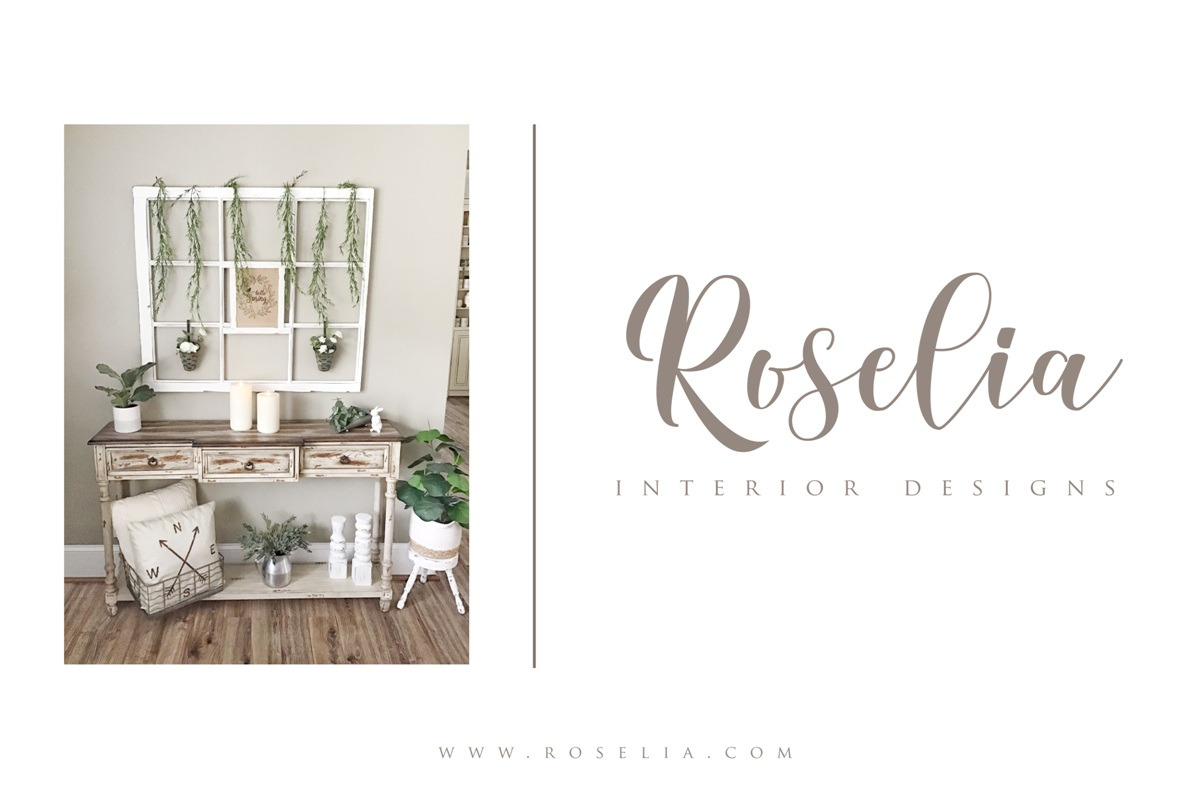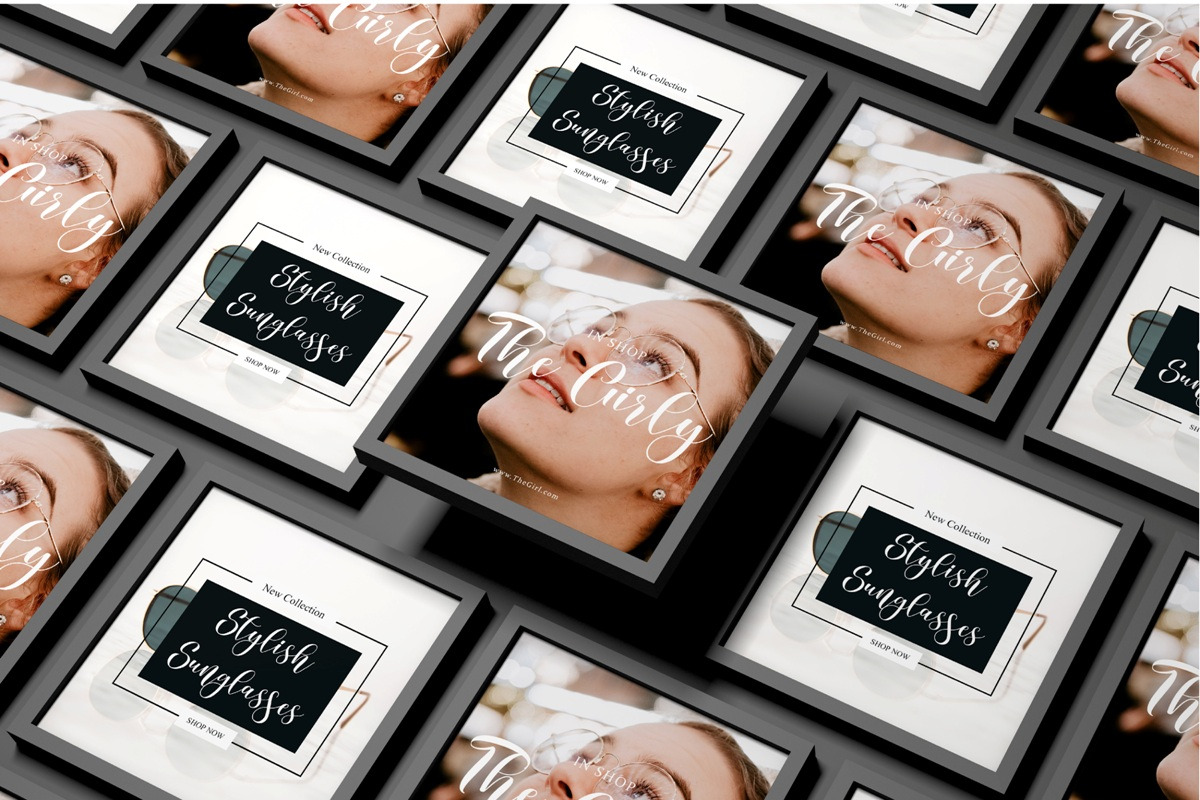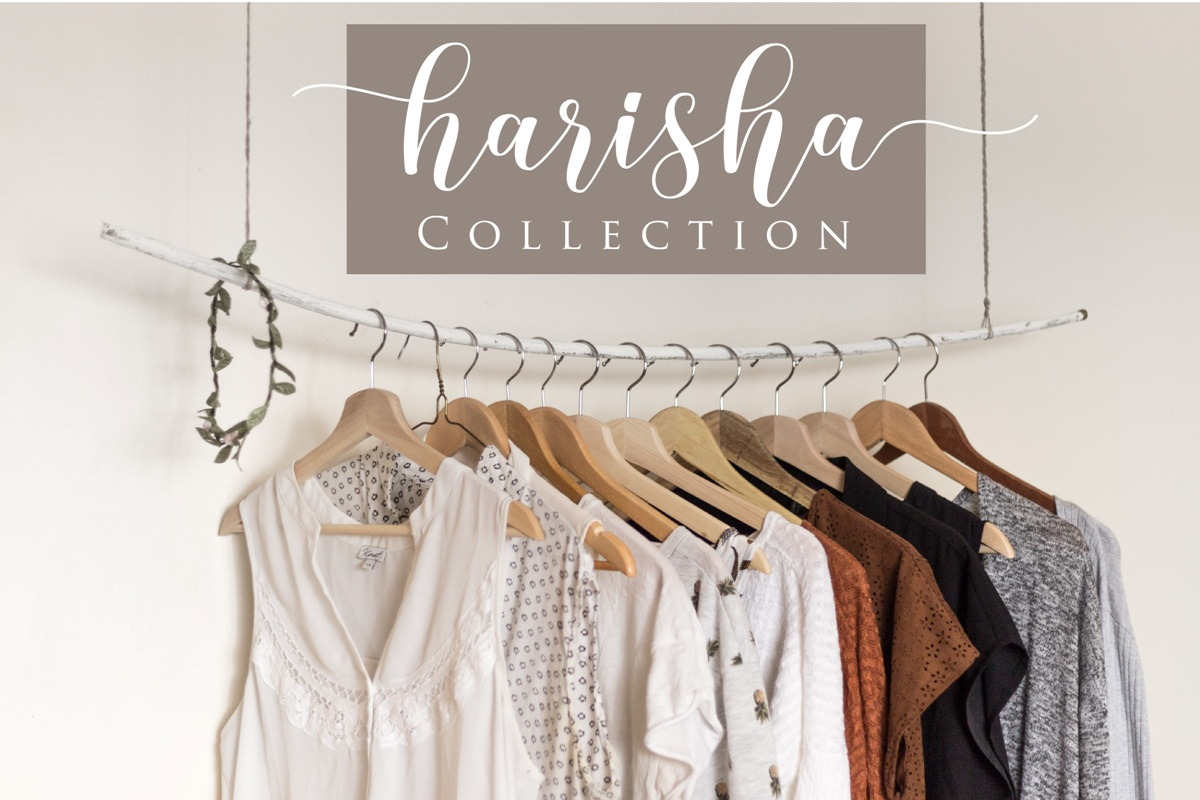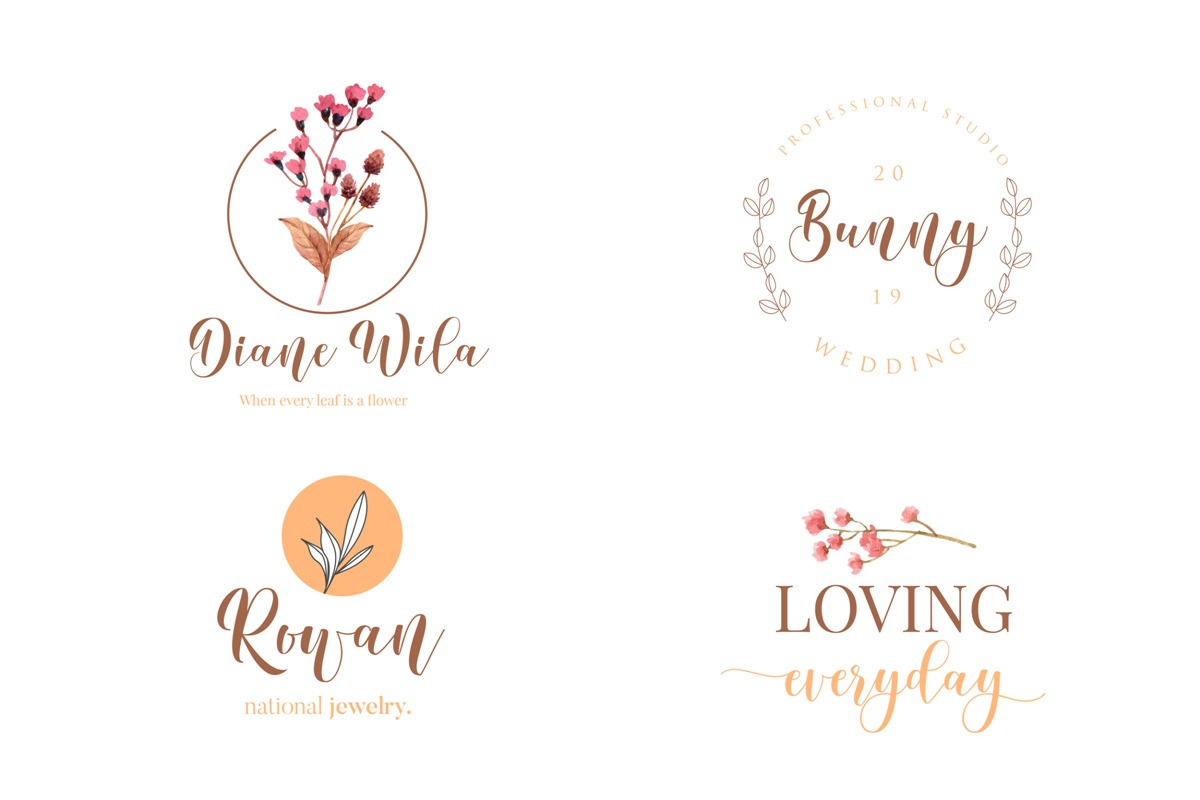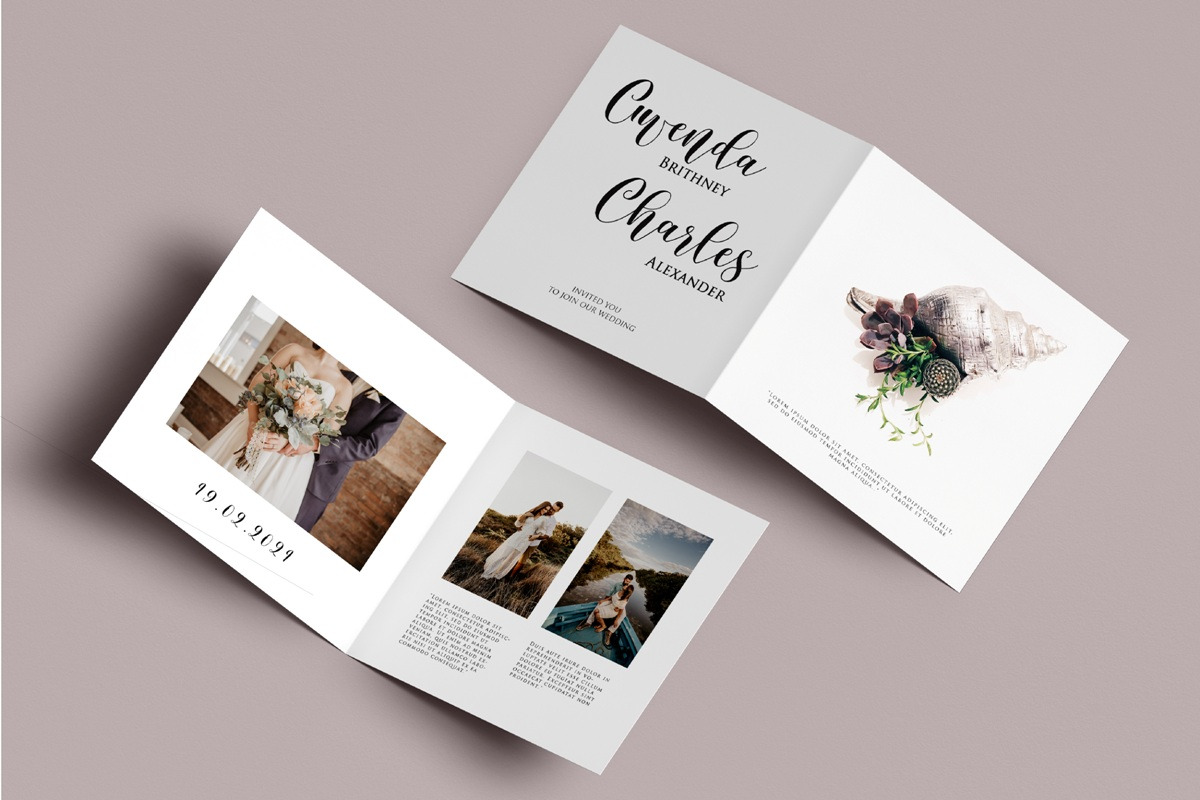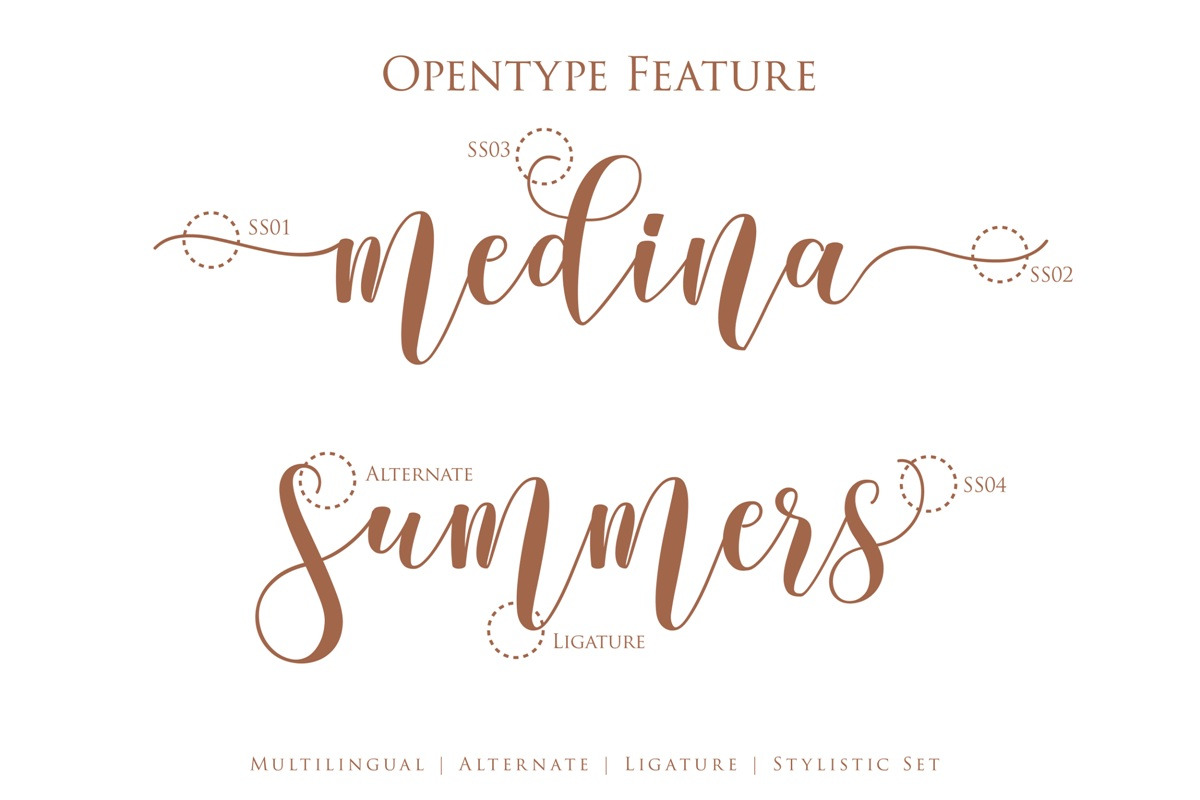
karoline | Lovely Script
karoline is a lovely script font with beginning and ending swashes, 31 ligatures that add more beautiful and aesthetic fonts to perfect your extraordinary project.
karoline is a lovely script with handwritten, sophisticated flows. It is perfect for branding, wedding invites, and other romantic projects.
karoline includes a full set of uppercase and lowercase letters, multilingual symbols, Alternate,numerals, punctuation and ligatures. Also it includes: -short lowercase beginning and ending swashes which serve to connect two words or letters (This is so perfect for invitations, monograms)